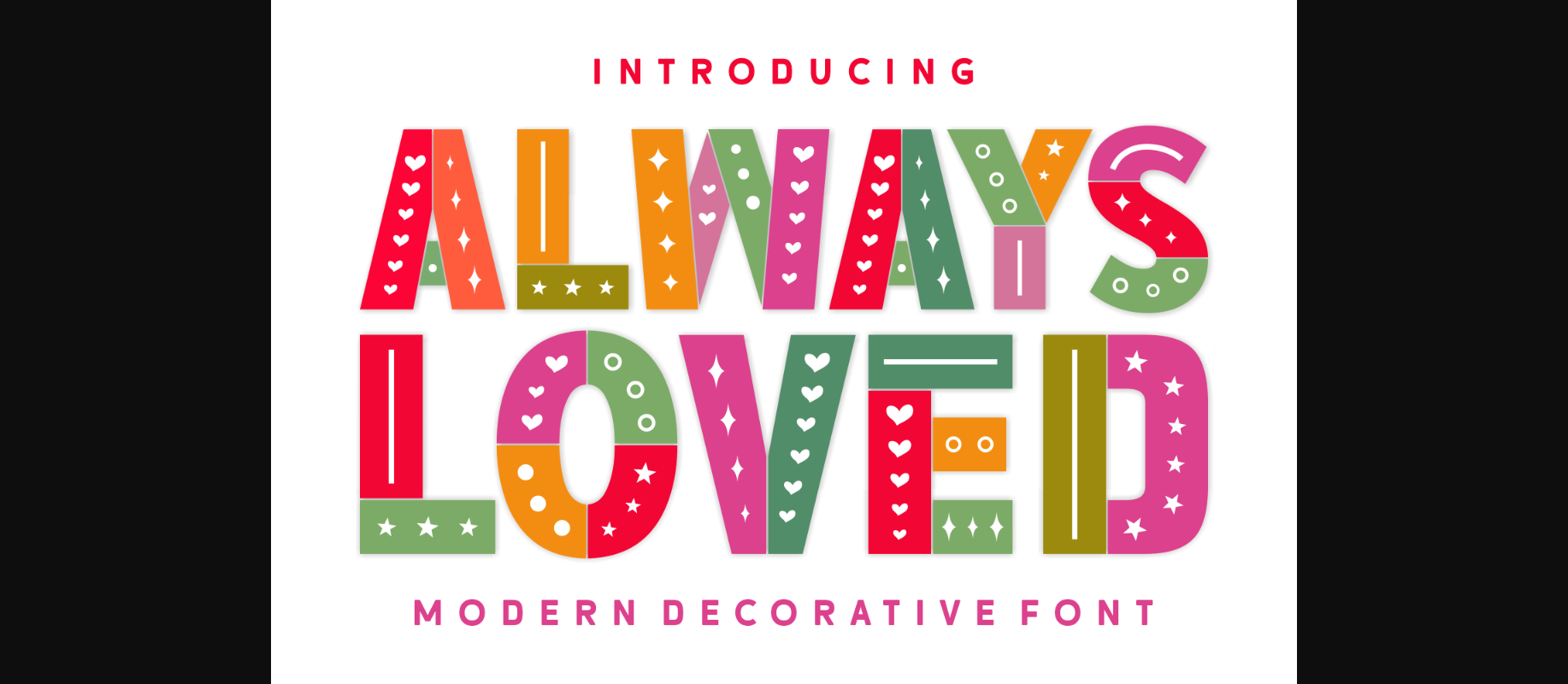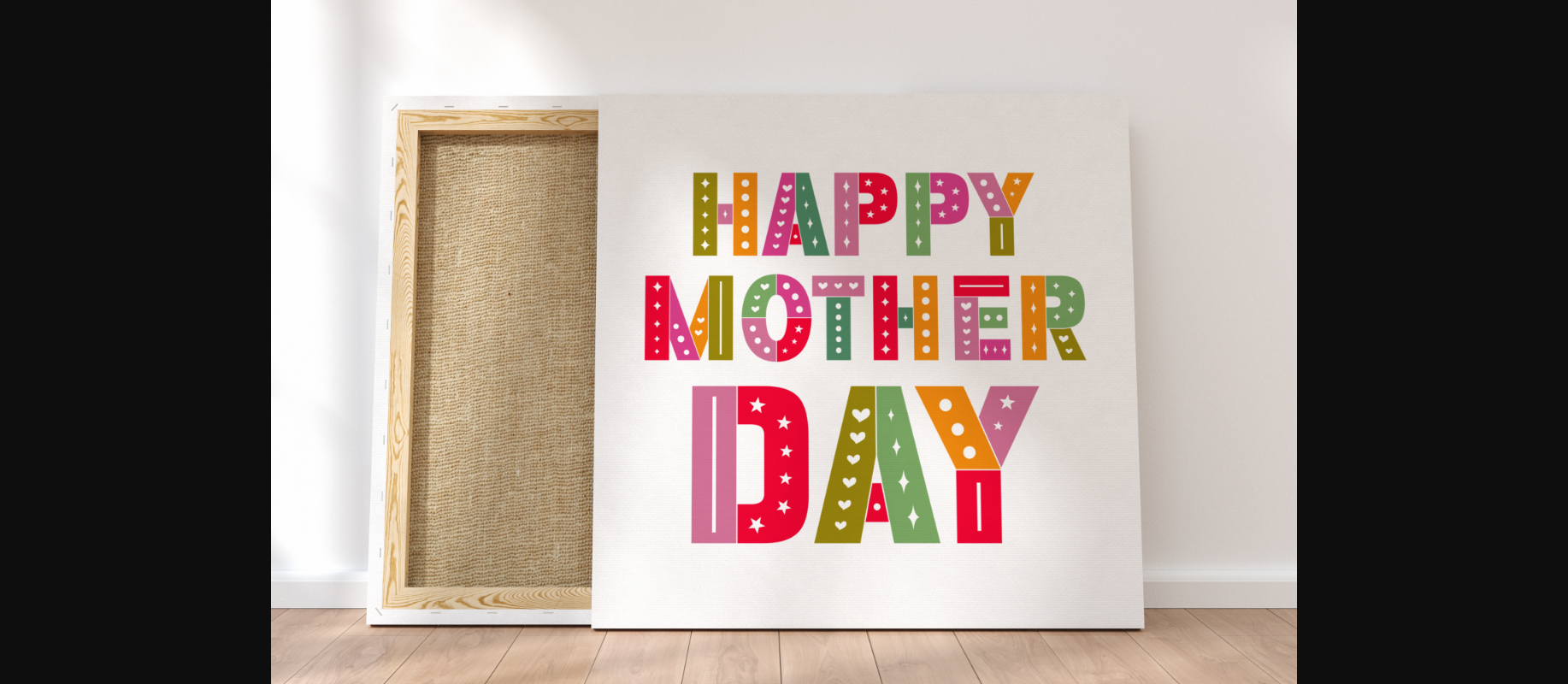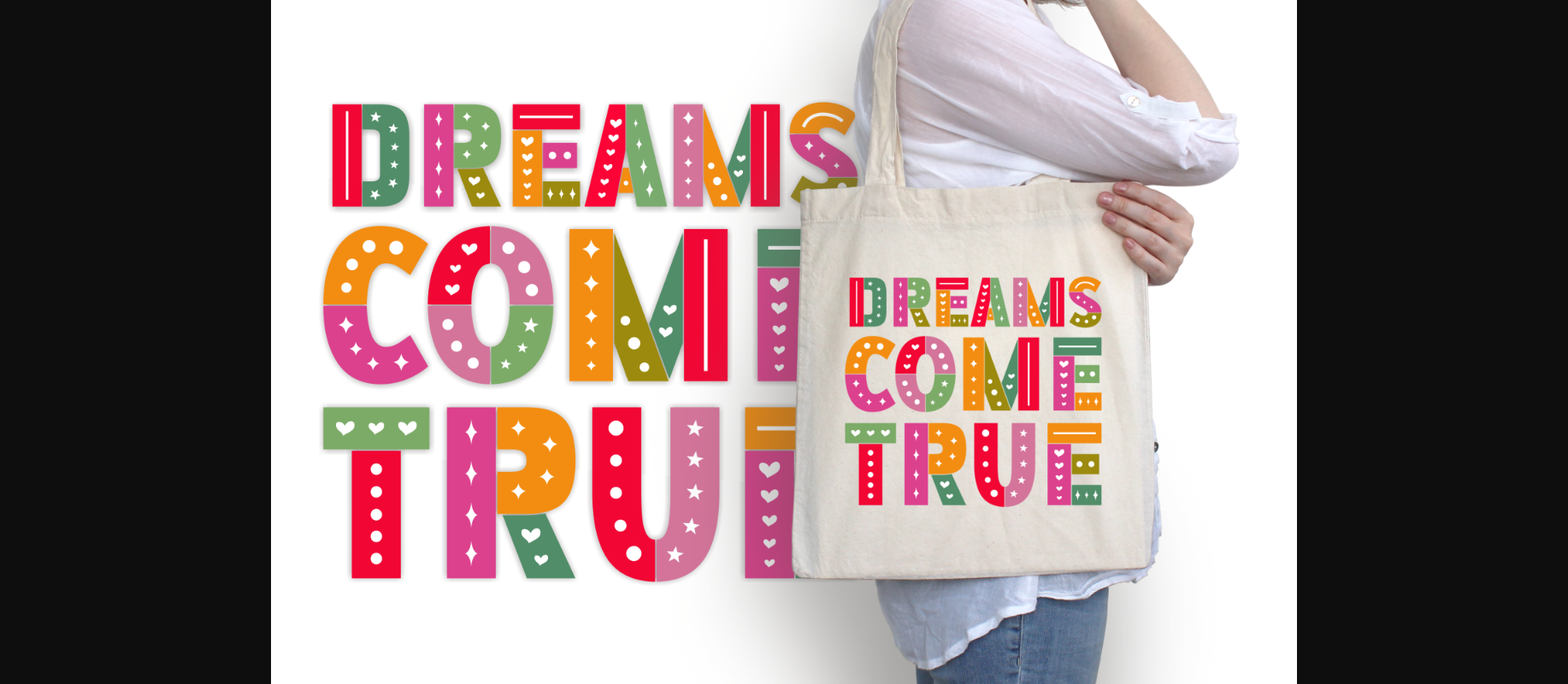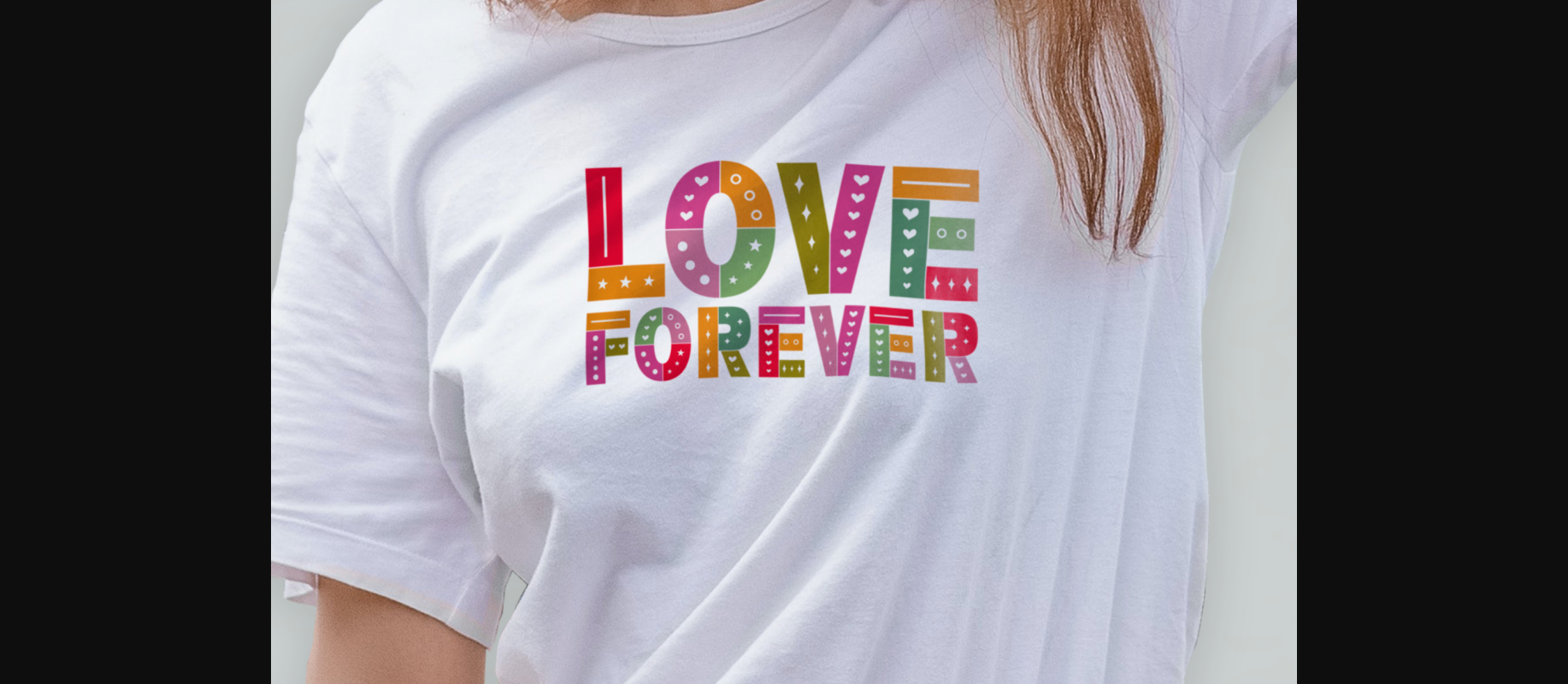
About Always Loved Font
Always Loved is an incredibly unique decorative font. Masterfully designed to become a true favorite, this font has the potential to bring each of your creative ideas to the highest level!